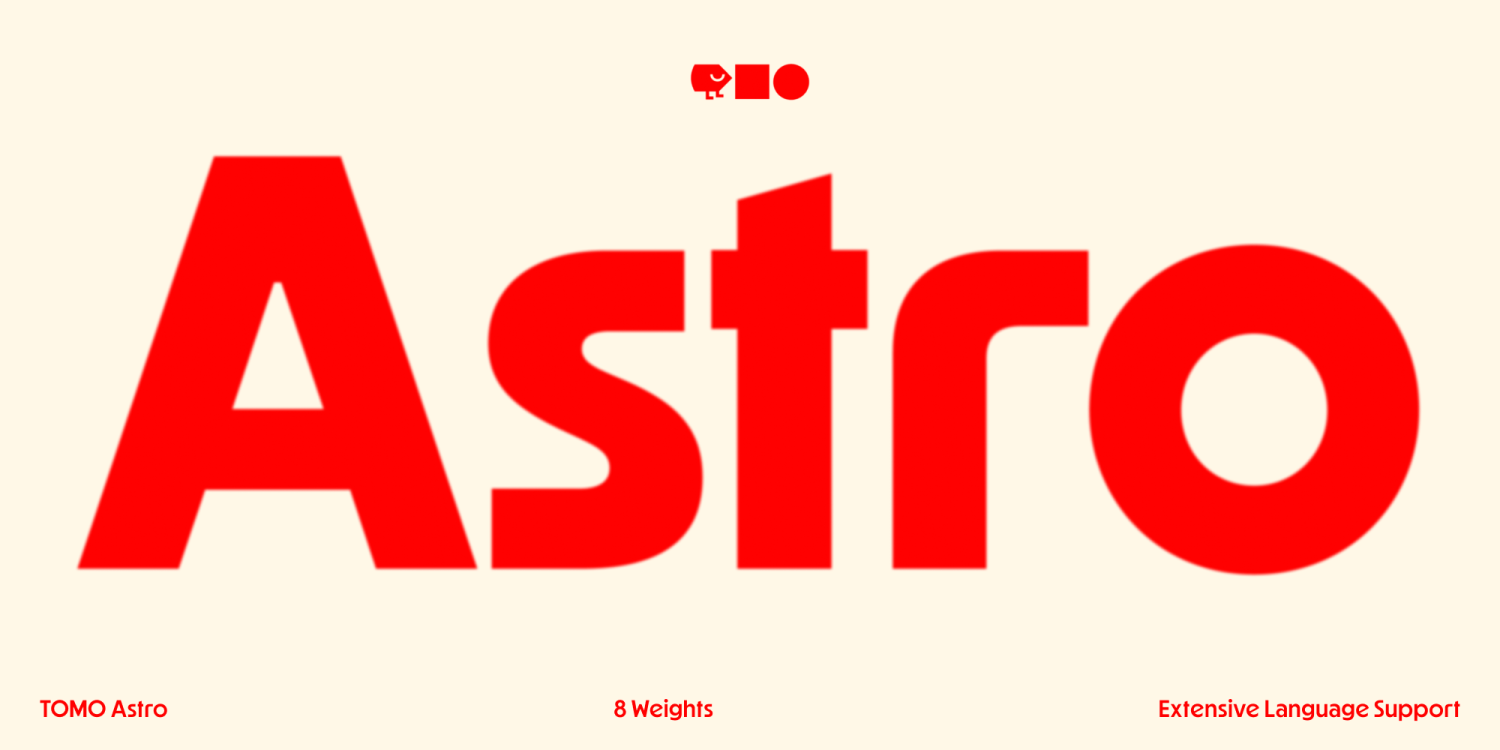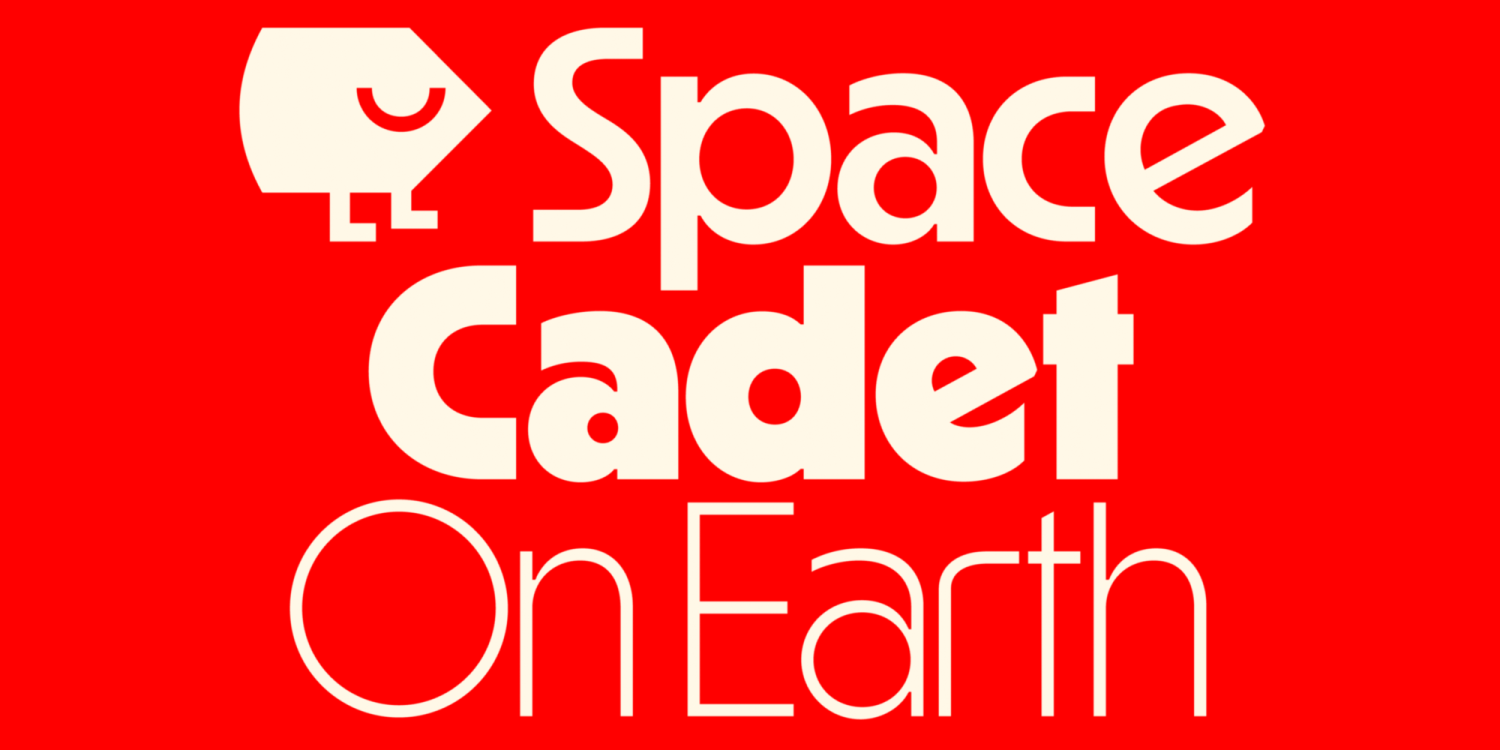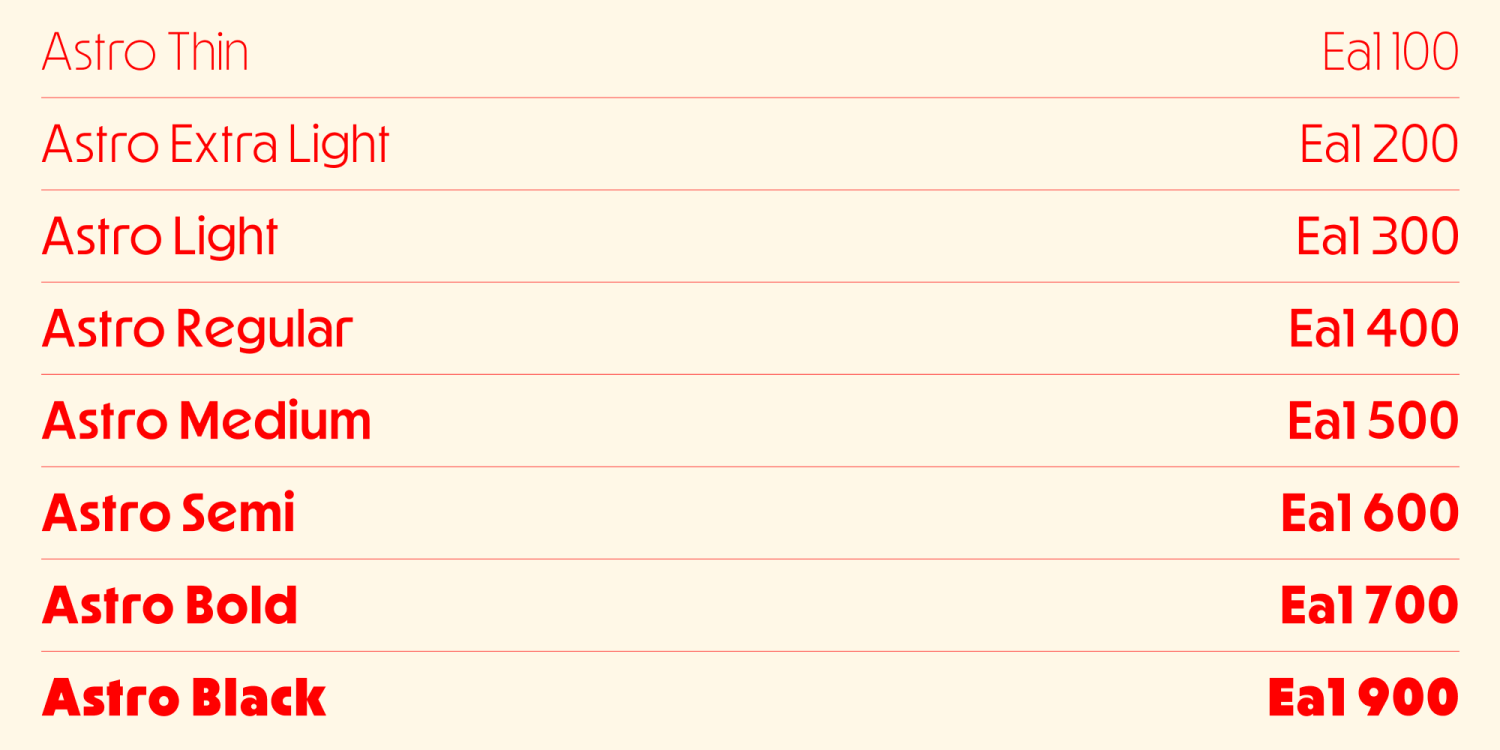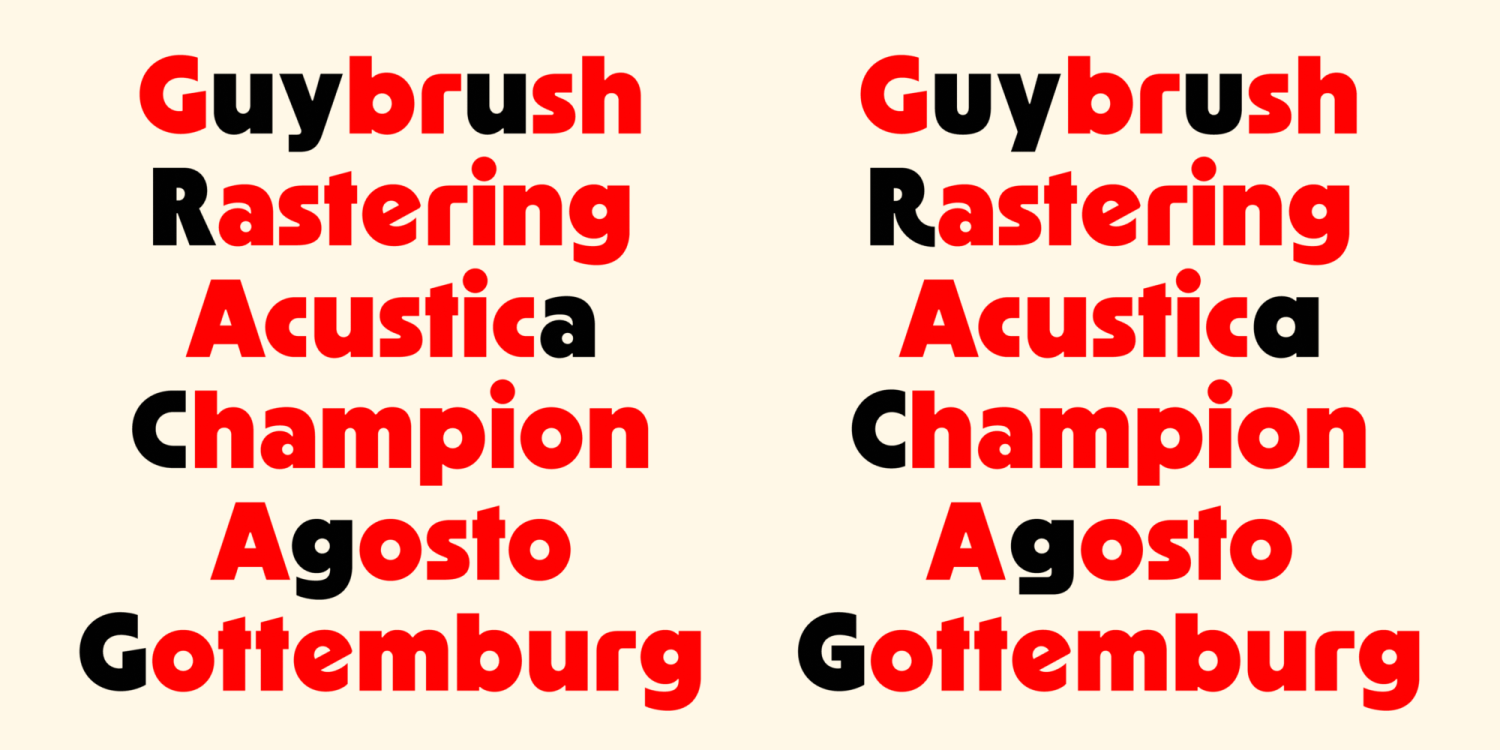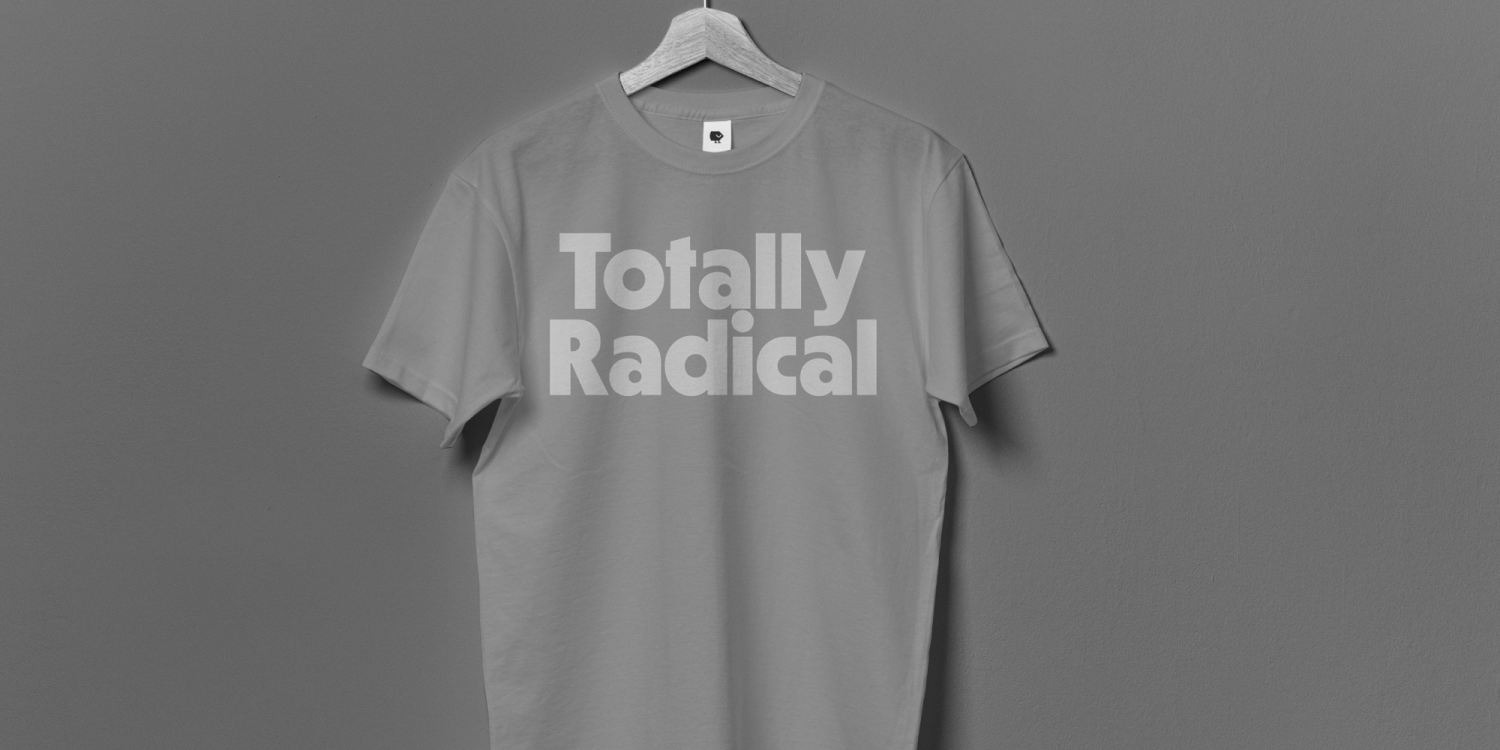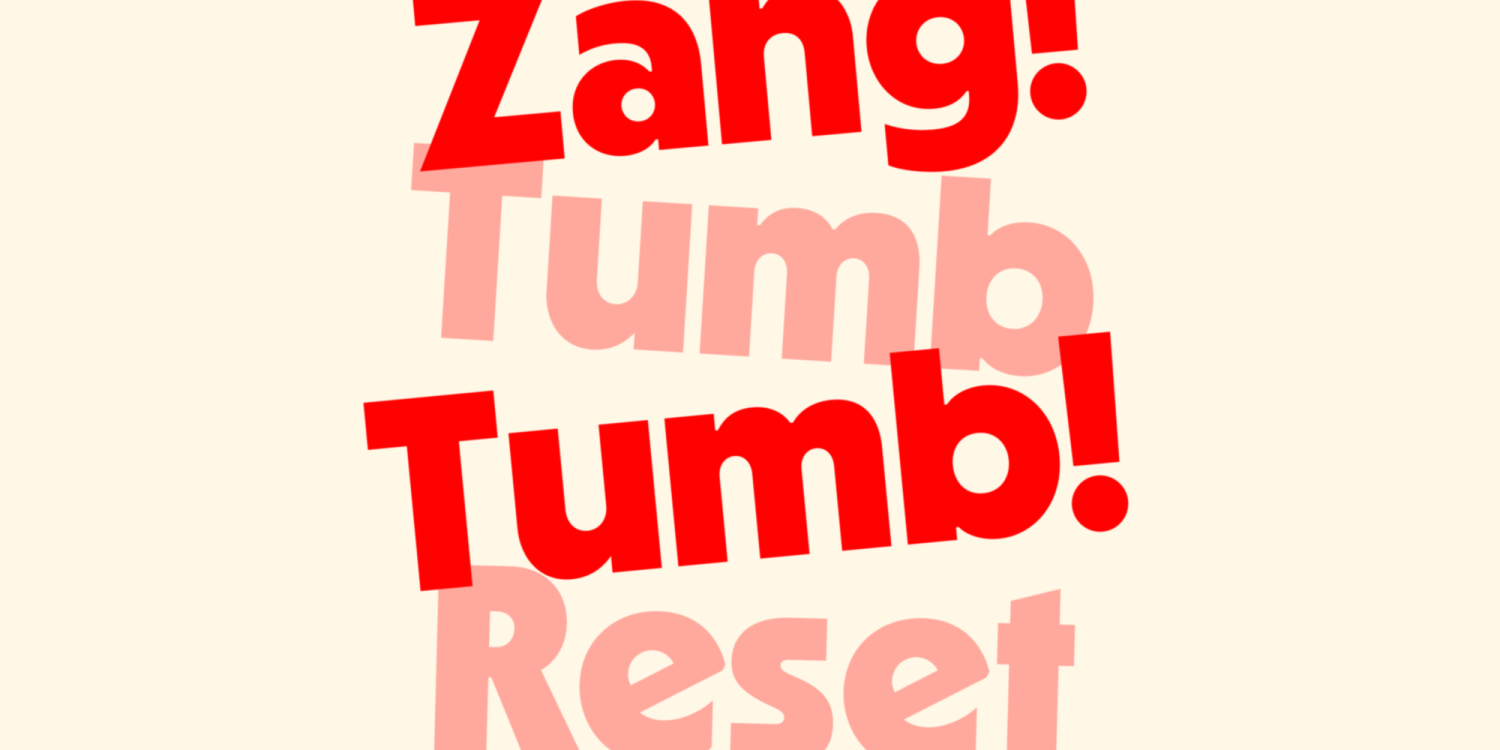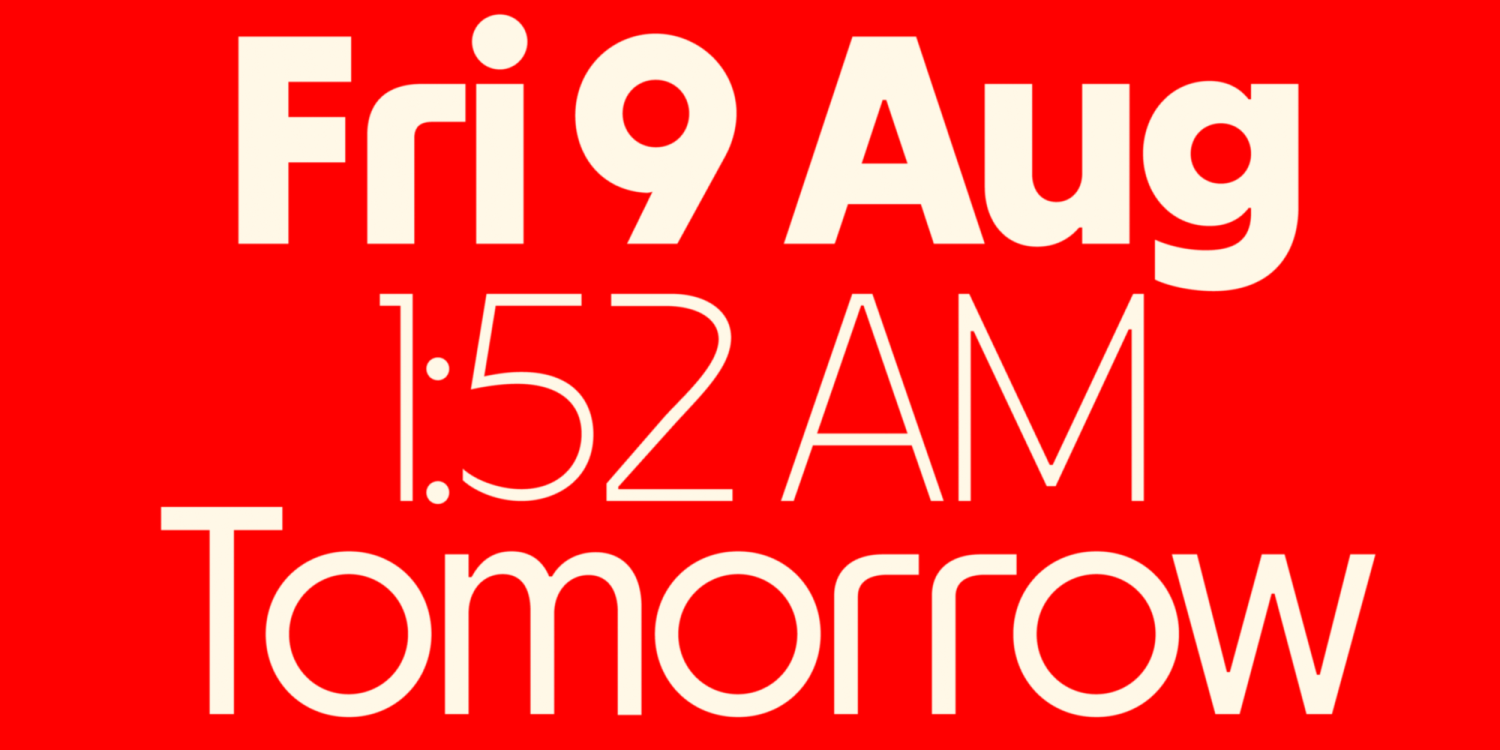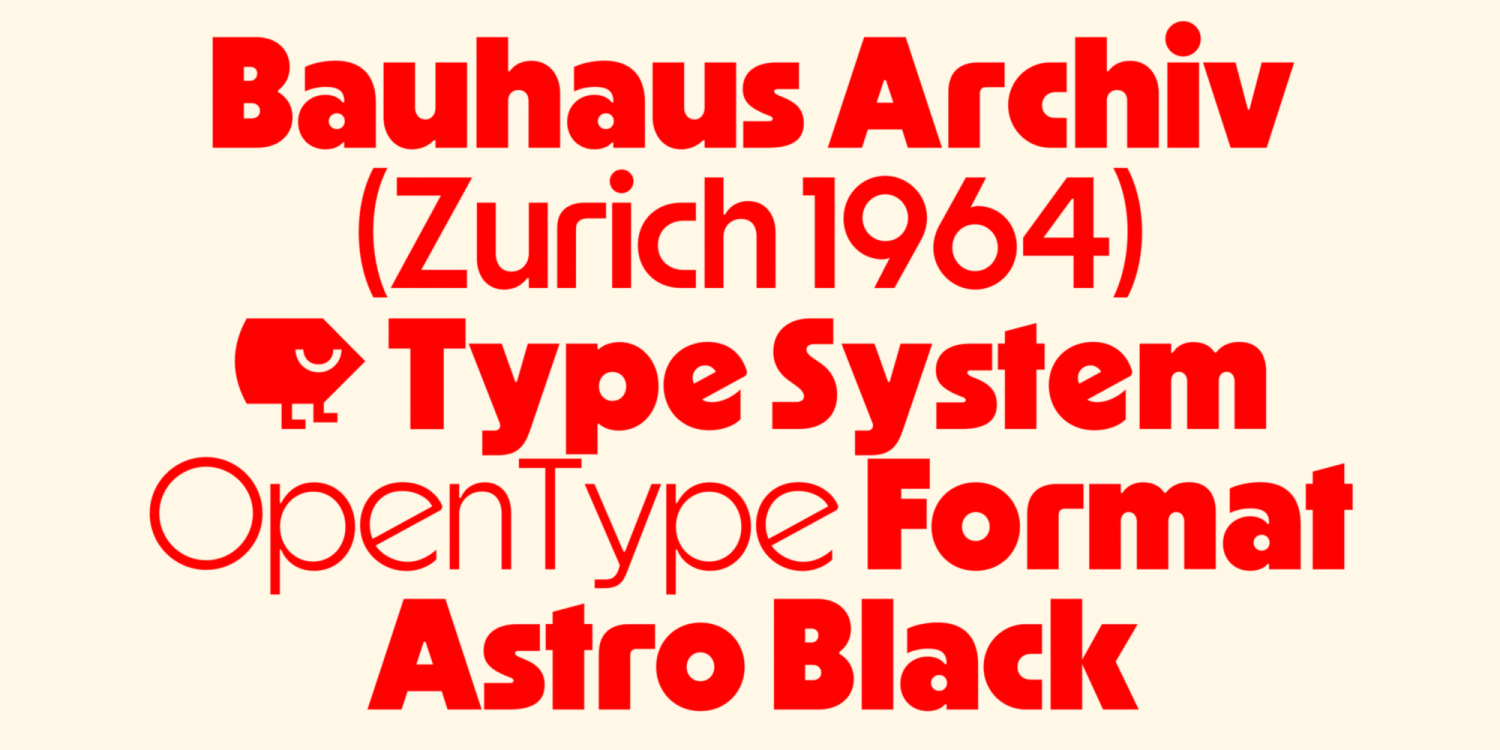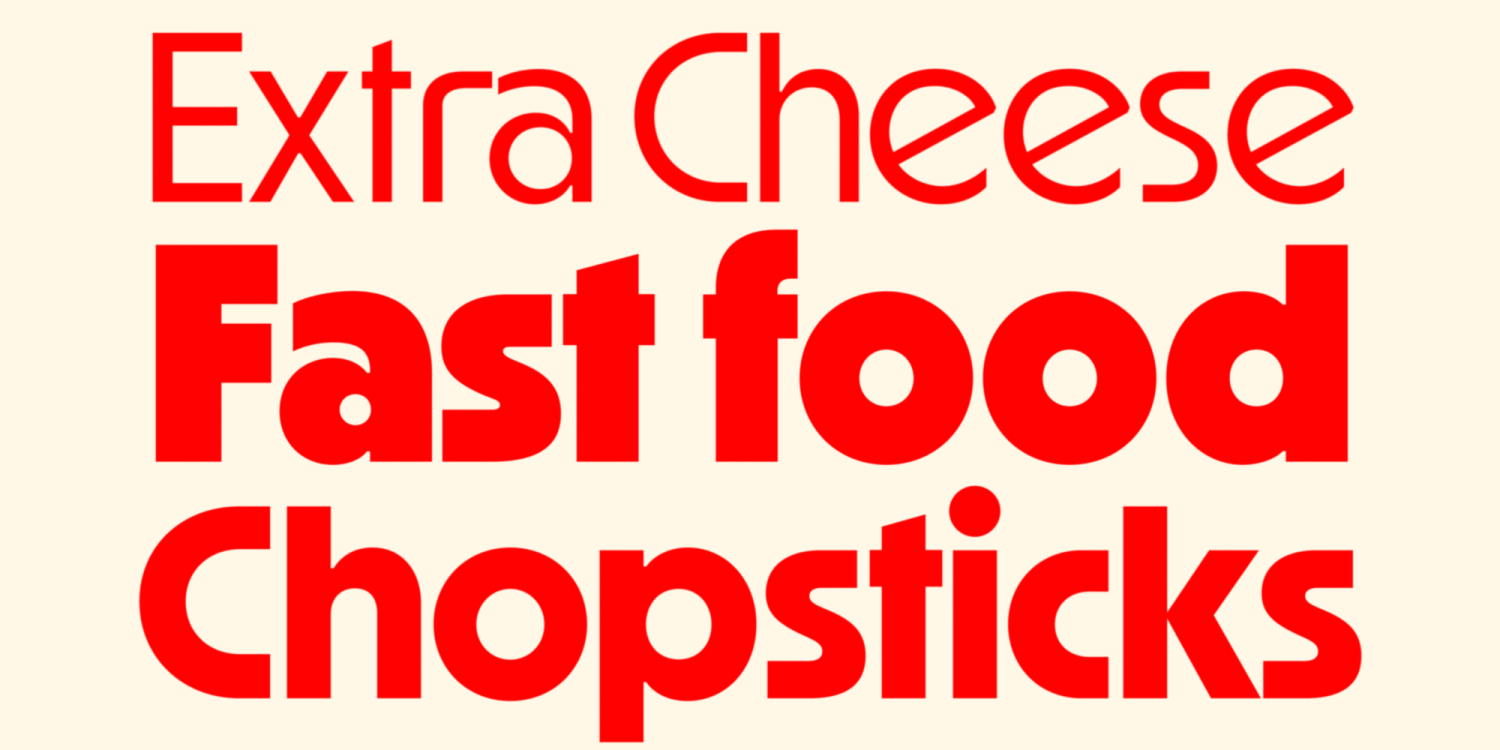
Astro
Buy NowIntroducing Astro, a striking typeface perfect for grabbing attention and making a statement. This bold, rounded and geometric sans-serif font offers a modern, clean aesthetic that’s perfect fast-paced marketing campaigns, and branding projects that require high energy. Ideal for restaurants, food trucks, or any brand looking for a fun, approachable retro vibe. The rounded yet structured letterforms offer a friendly yet professional feel, making this font versatile for both playful and corporate designs.
Astro is a Bold, Retro, Playful, and Eye-Catching Font for your next design project.